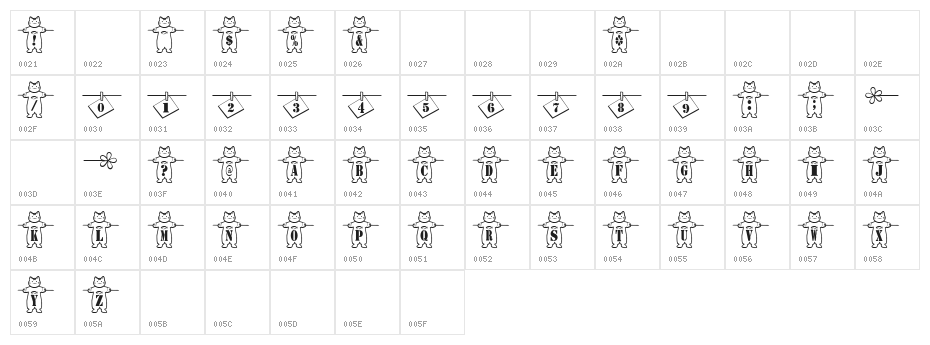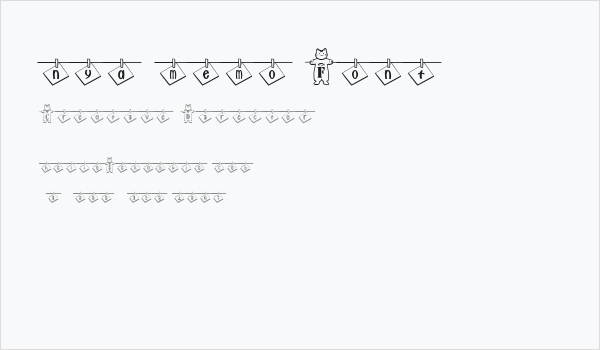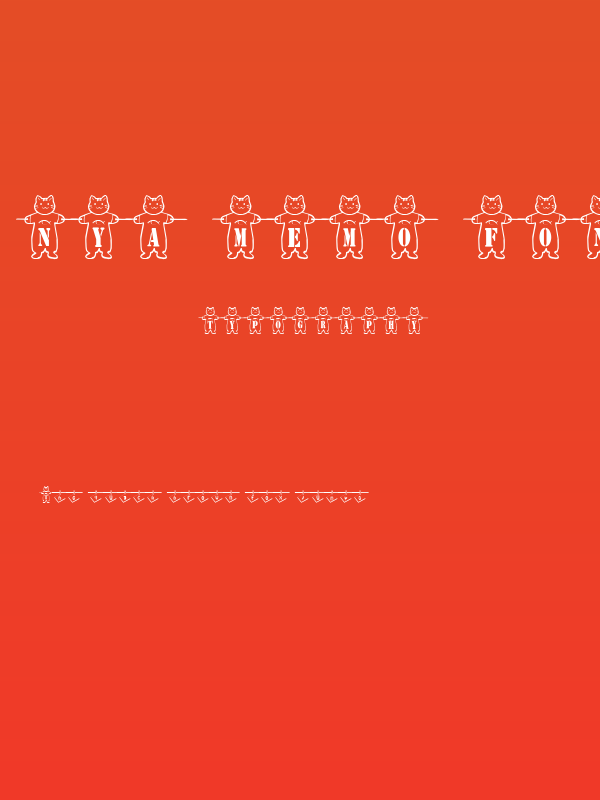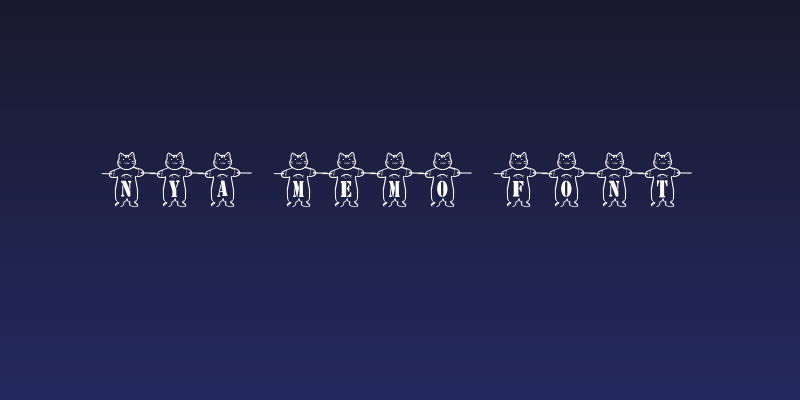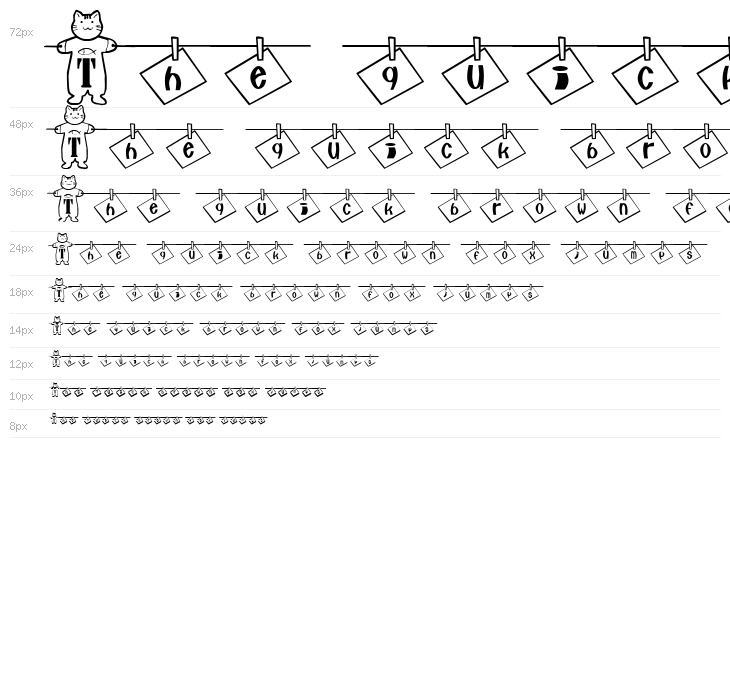
nya-memo Font Font
nya-memo Font Description
This playful and whimsical font features characters that are creatively integrated into cat illustrations. Each letter and number is presented within a cat figure, adding a unique and charming touch. The uppercase letters are bold and clear, while the lowercase letters hang from a clothesline, adding a dynamic and fun element. The numbers are also displayed on a clothesline, maintaining the playful theme. Special characters are incorporated into the cat figures, enhancing the font's cohesive and entertaining style. This font is perfect for projects that require a lighthearted and imaginative feel.
| Use Case | Headlines, Logos, Decorative Text |
| Proposed Projects | Ideal for children's books, playful branding, greeting cards, and any project that benefits from a whimsical and fun aesthetic. |